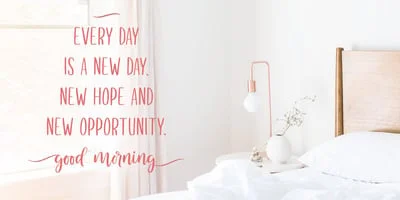
Melloner Font
Melloner Font is perfect for wellness retreat center branding, meditation studio signage, spa service communications, mindfulness app interfaces, yoga instructor marketing, holistic healing practice logos, natural wellness product packaging, and serene lifestyle magazine layouts.
Melloner Font is exciting because it captures the gentle tranquility of inner peace with its harmoniously flowing letterforms that seem to breathe with the rhythm of meditation and radiate the calm energy of mindful living. The typeface embodies the wisdom of ancient wellness traditions and the contemporary pursuit of balanced living, creating an immediate sense of peaceful serenity and mindful awareness that resonates with those seeking authentic wellness and spiritual growth.
Melloner Font family includes Light, Regular, Medium, Bold, and Zen variants, complemented by organic flowing decorative elements and mindfulness-inspired ornamental features, offering designers peaceful typography tools for creating communications that celebrate the journey toward inner harmony and holistic well-being.
Whether you're developing a wellness center's brand identity, designing mindfulness program materials, or creating tranquil lifestyle content, Melloner Font provides unmatched wellness authenticity and peaceful appeal. This serene typeface perfectly balances spiritual depth with contemporary accessibility, ensuring your communications resonate with wellness-seeking audiences who value both ancient wisdom and modern mindfulness practices. The font's flowing character variations and meditative rhythm make it particularly effective for brands that emphasize inner peace, personal growth, and the kind of authentic wellness experience that nurtures both body and spirit. Wellness professionals consistently select Melloner Font when projects require typography that communicates tranquility, healing, and the kind of mindful approach to living that transforms daily stress into opportunities for growth and self-discovery, making it indispensable for wellness industry branding, mindfulness education marketing, and any application where peaceful typography can inspire people to slow down, breathe deeply, and reconnect with the natural rhythm of life that brings balance, clarity, and the profound sense of well-being that comes from living in harmony with oneself and the world.